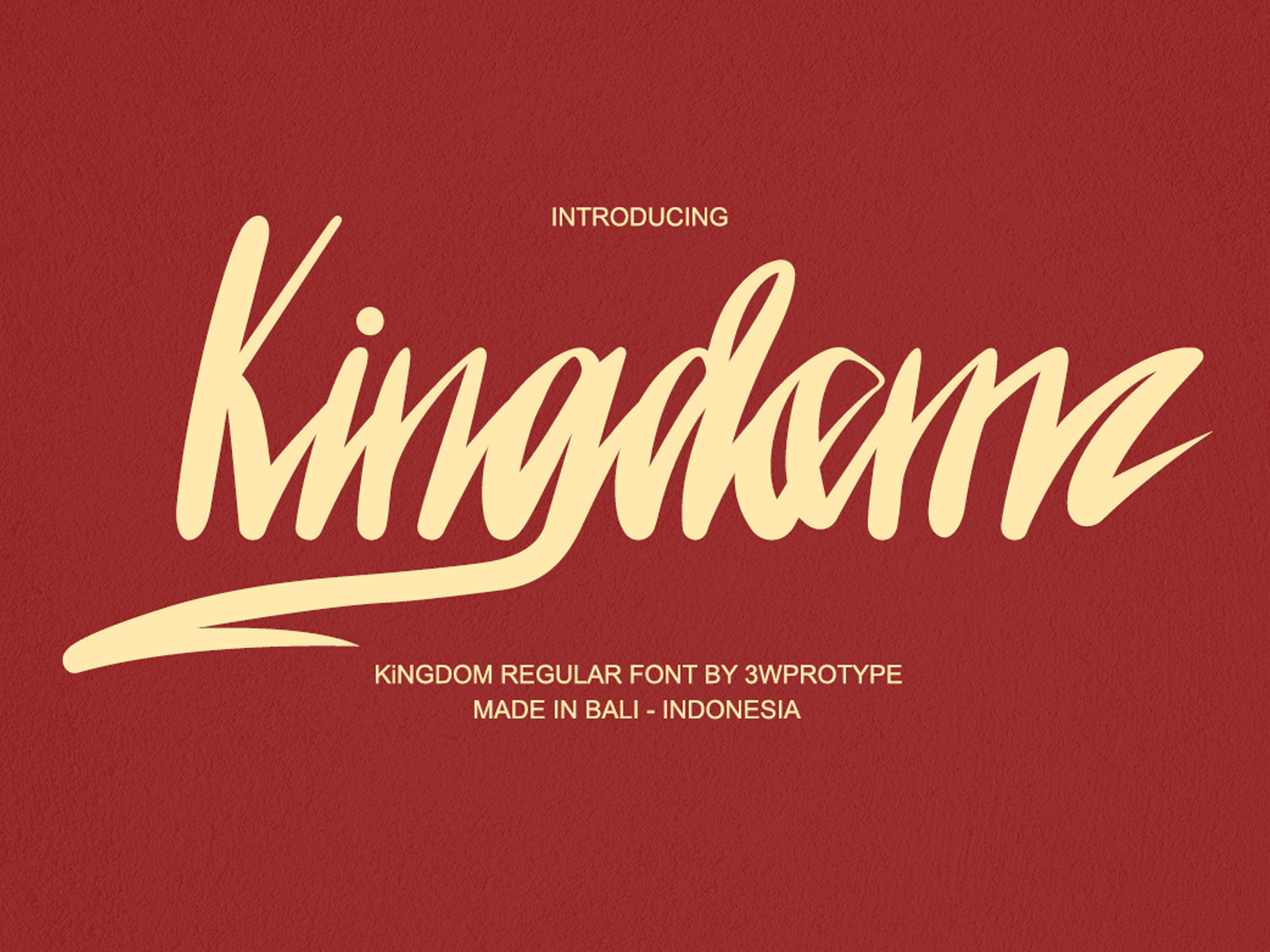
Kingdom | FREE FONT
Introducing the regular Kingdom font, which is used for the needs of designers who are looking for characters such as custom made for logo design, branding, advertising, clothing branding and etc. This font was inspired by modern fonts combined with additional swashes and alternates.